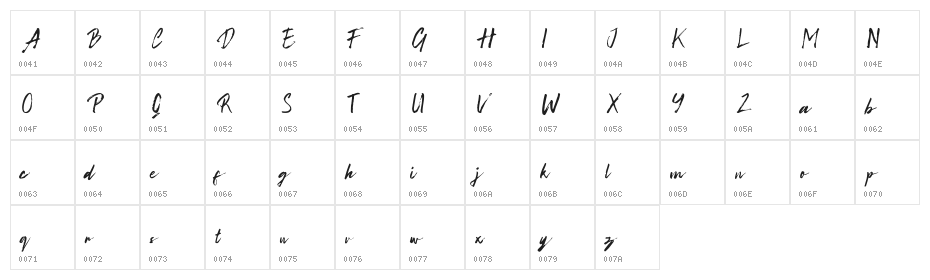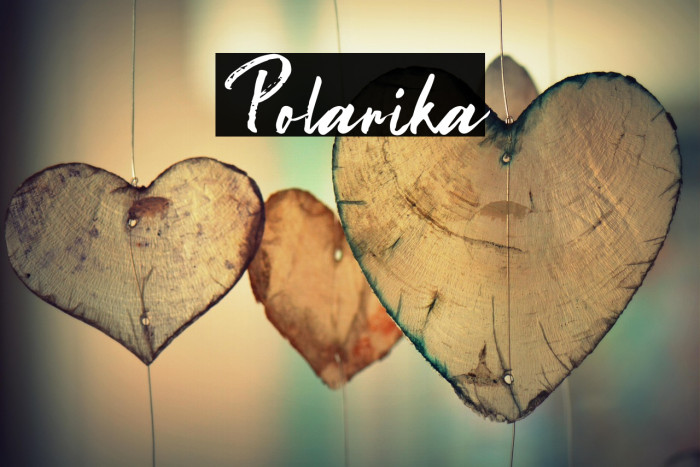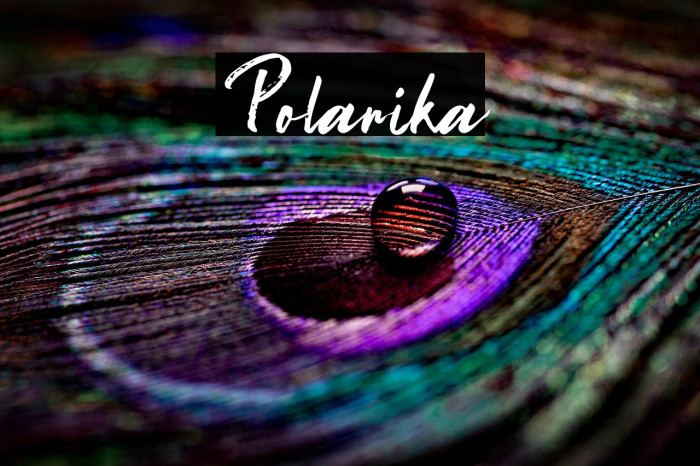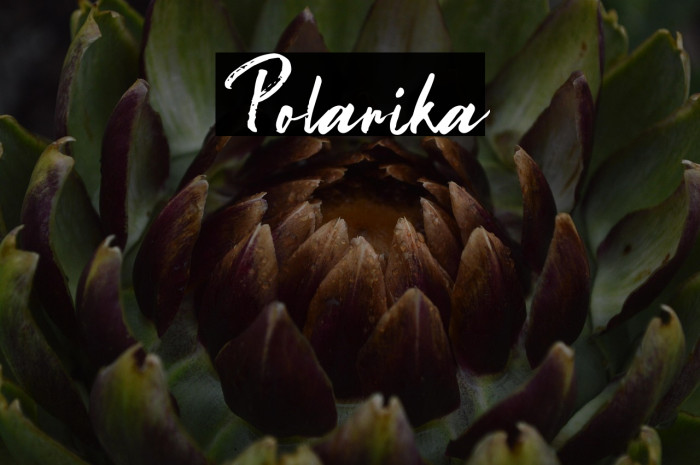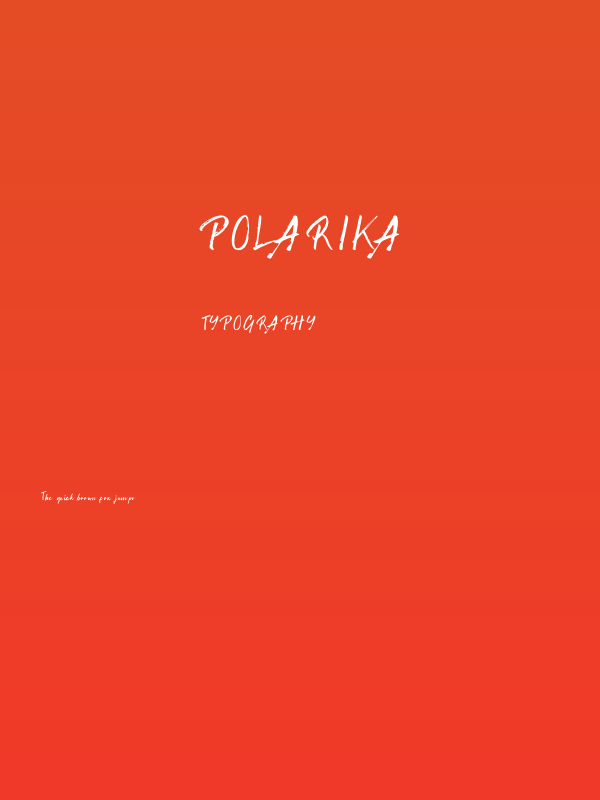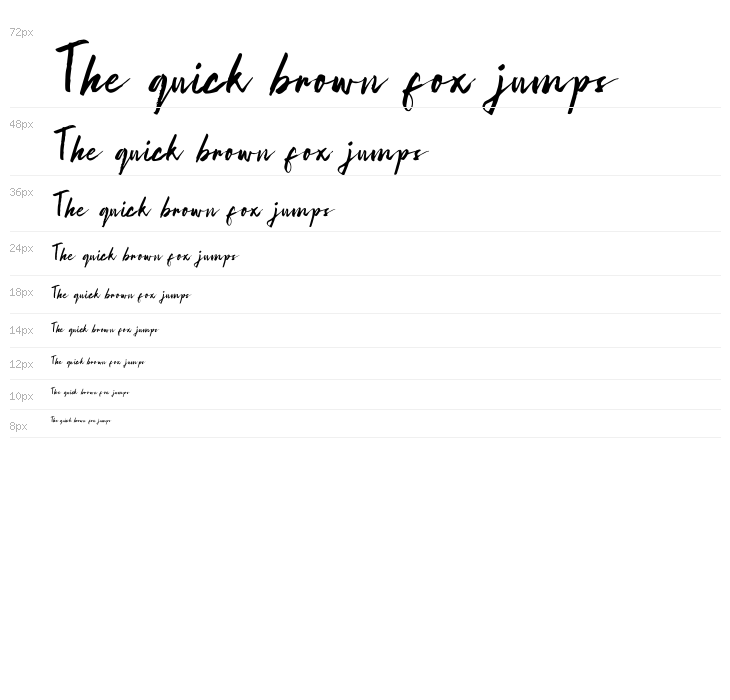
Polarika Font
Polarika Description
This font exhibits a dynamic and expressive handwritten style, characterized by its brush-like strokes and fluid movement. The letters are crafted with a sense of spontaneity, giving them an artistic and personal touch. The uppercase letters are bold and commanding, while the lowercase letters maintain a consistent flow, enhancing the font's overall cohesiveness. The texture of the strokes varies, adding depth and interest to the design. This font is ideal for projects that require a personal, creative, and informal touch, making it suitable for artistic branding, invitations, and expressive headlines.
| Proposed Projects | Artistic branding, invitations, expressive headlines, creative posters. |